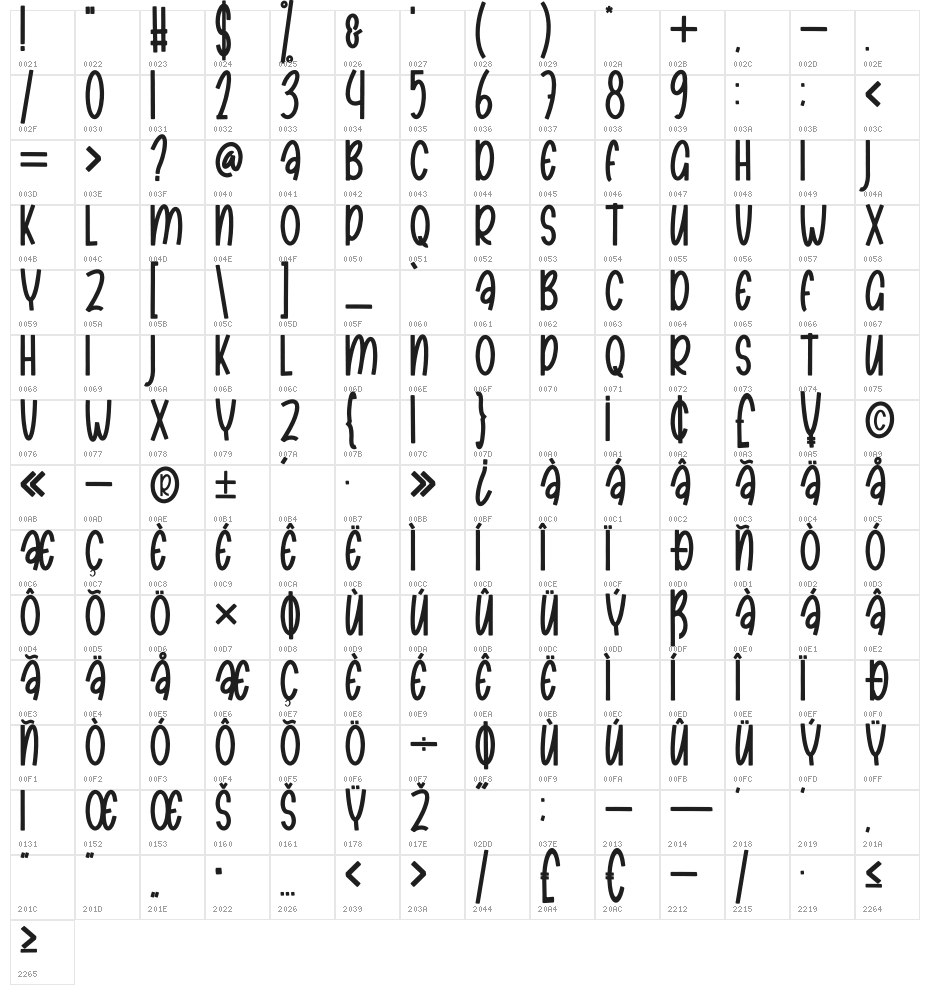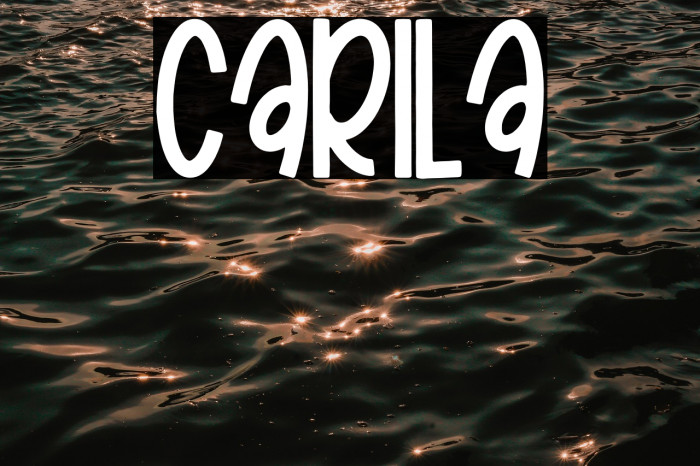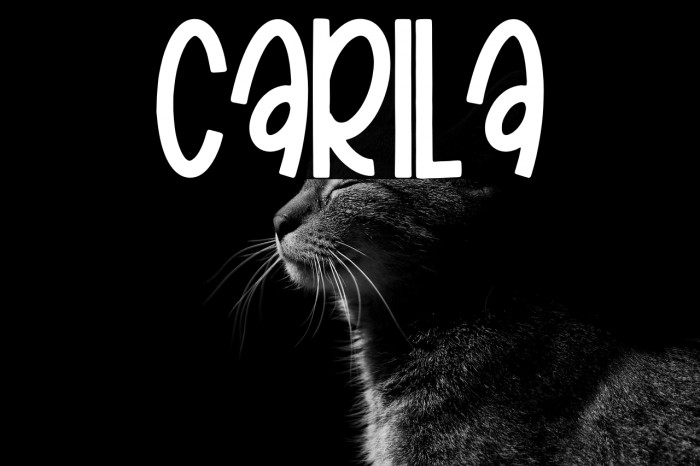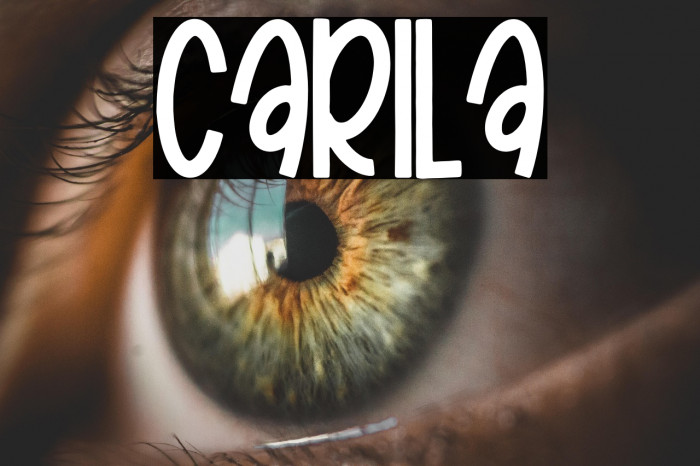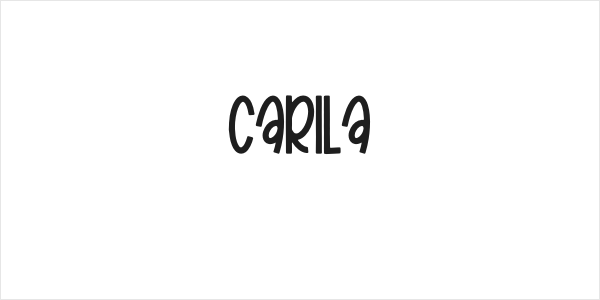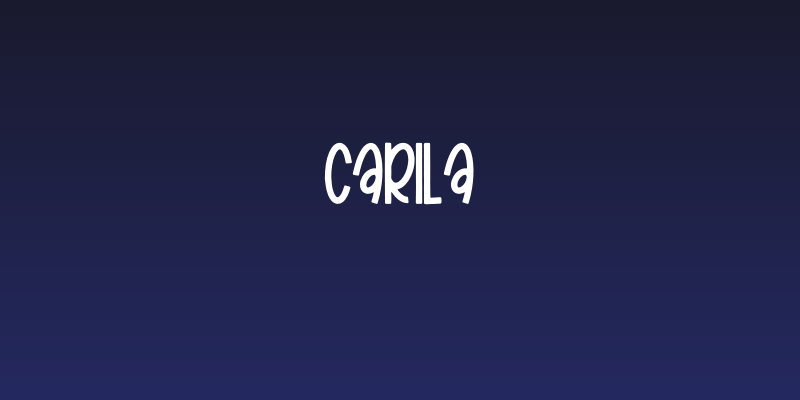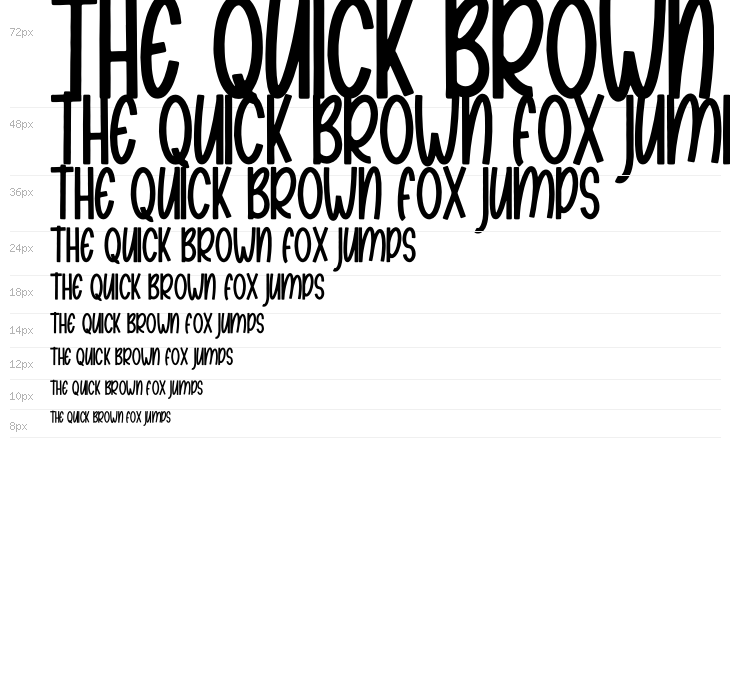
Carila Font
Carila Description
This font features a playful and bold design with exaggerated curves and a slightly condensed form. The characters are tall and narrow, giving a sense of height and energy. The strokes are thick and consistent, providing a strong visual impact. The uppercase and lowercase letters maintain a cohesive style, with rounded edges and a whimsical flair. Numbers and special characters are designed to match the overall aesthetic, ensuring uniformity across all text elements. This font is ideal for projects that require a fun and engaging look.
| Proposed Projects | Ideal for children's books, playful branding, posters, and creative invitations. |